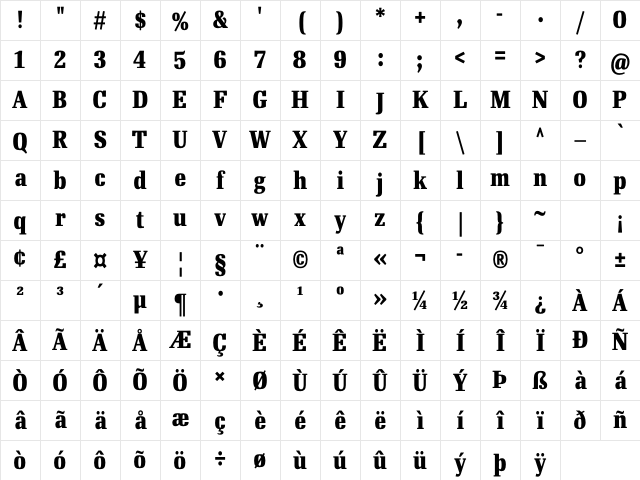
RePublic Text Bold Cond Free Font
RePublic Text Bold Cond
Style: Bold Cond
RePublic Text Family
RePublic Text Bold Cond
Design Context for RePublic Text
RePublic Text is a composed and adaptable typeface that performs quietly and consistently across a wide range of design contexts. Its bold stroke weight gives it real presence on the page. Its narrow stance lets it pack a punch even in space-constrained designs.